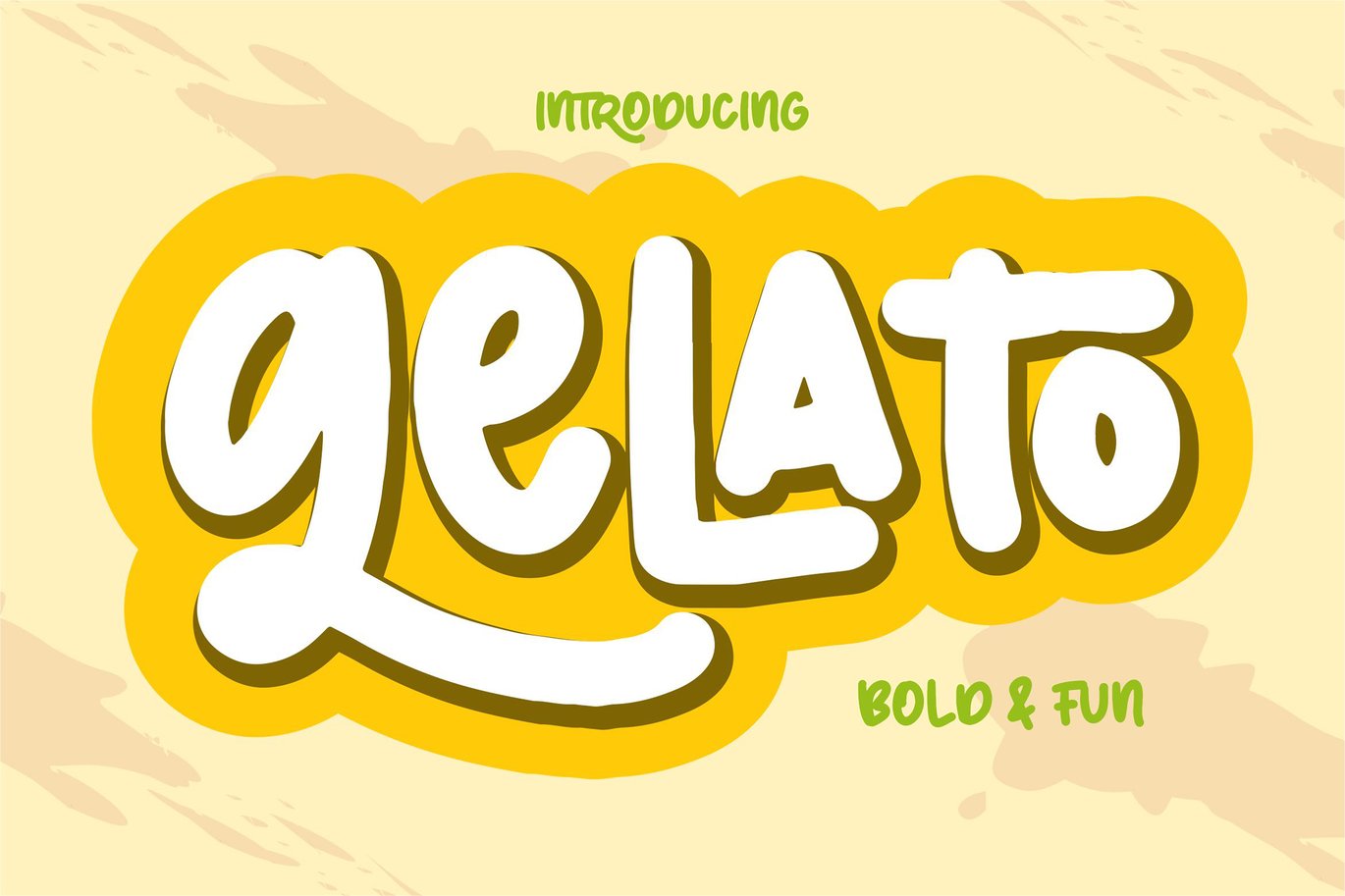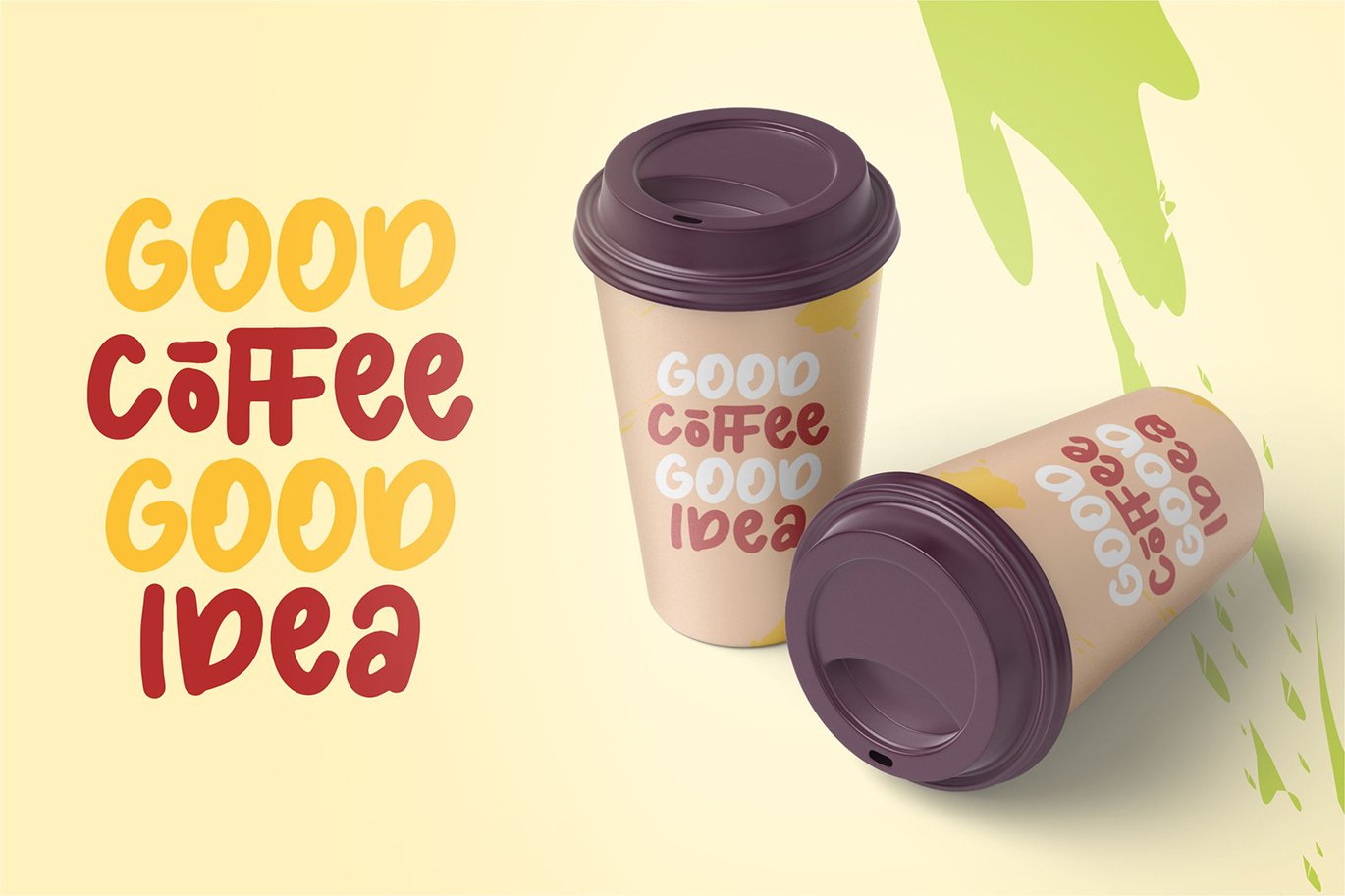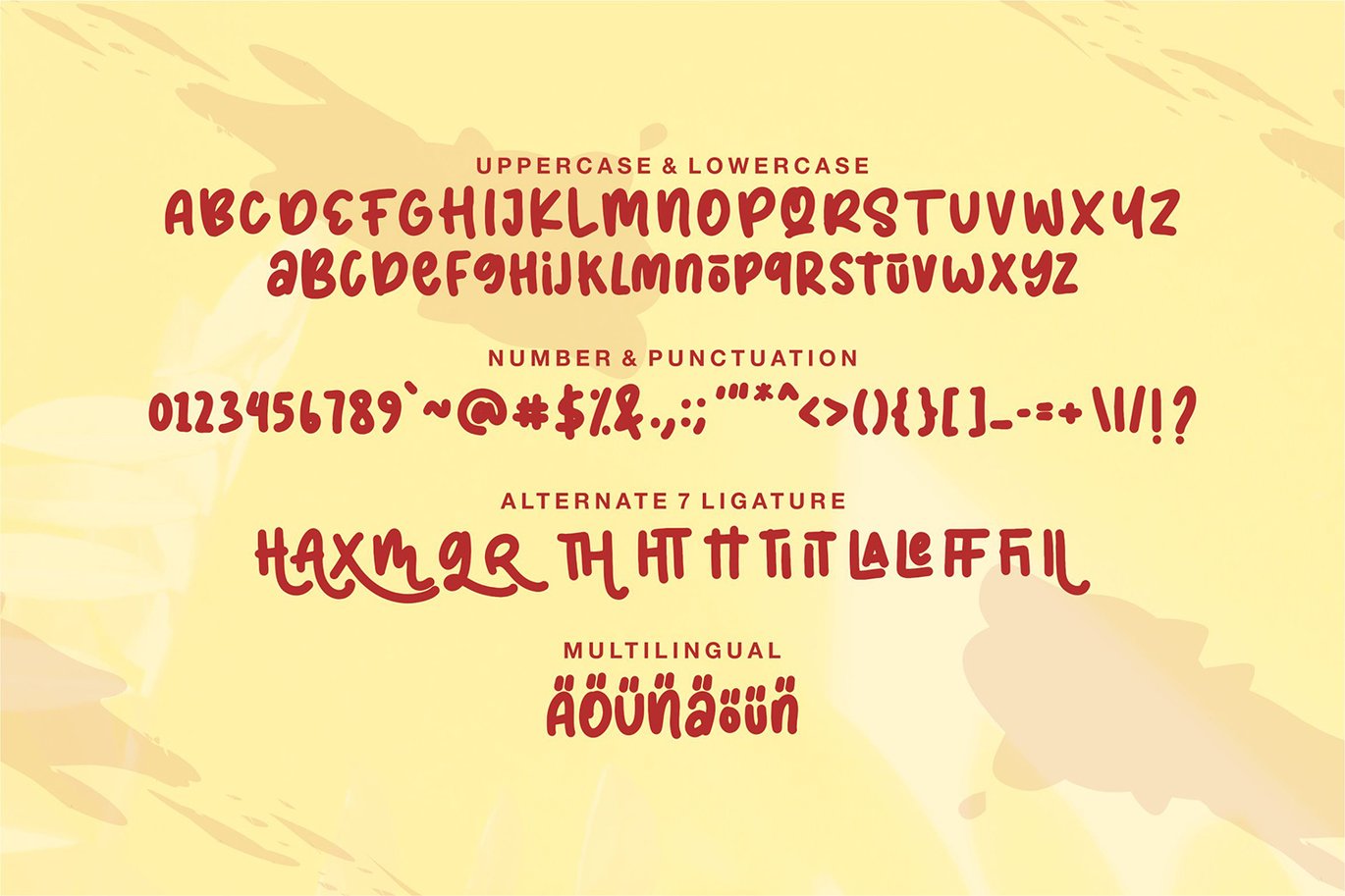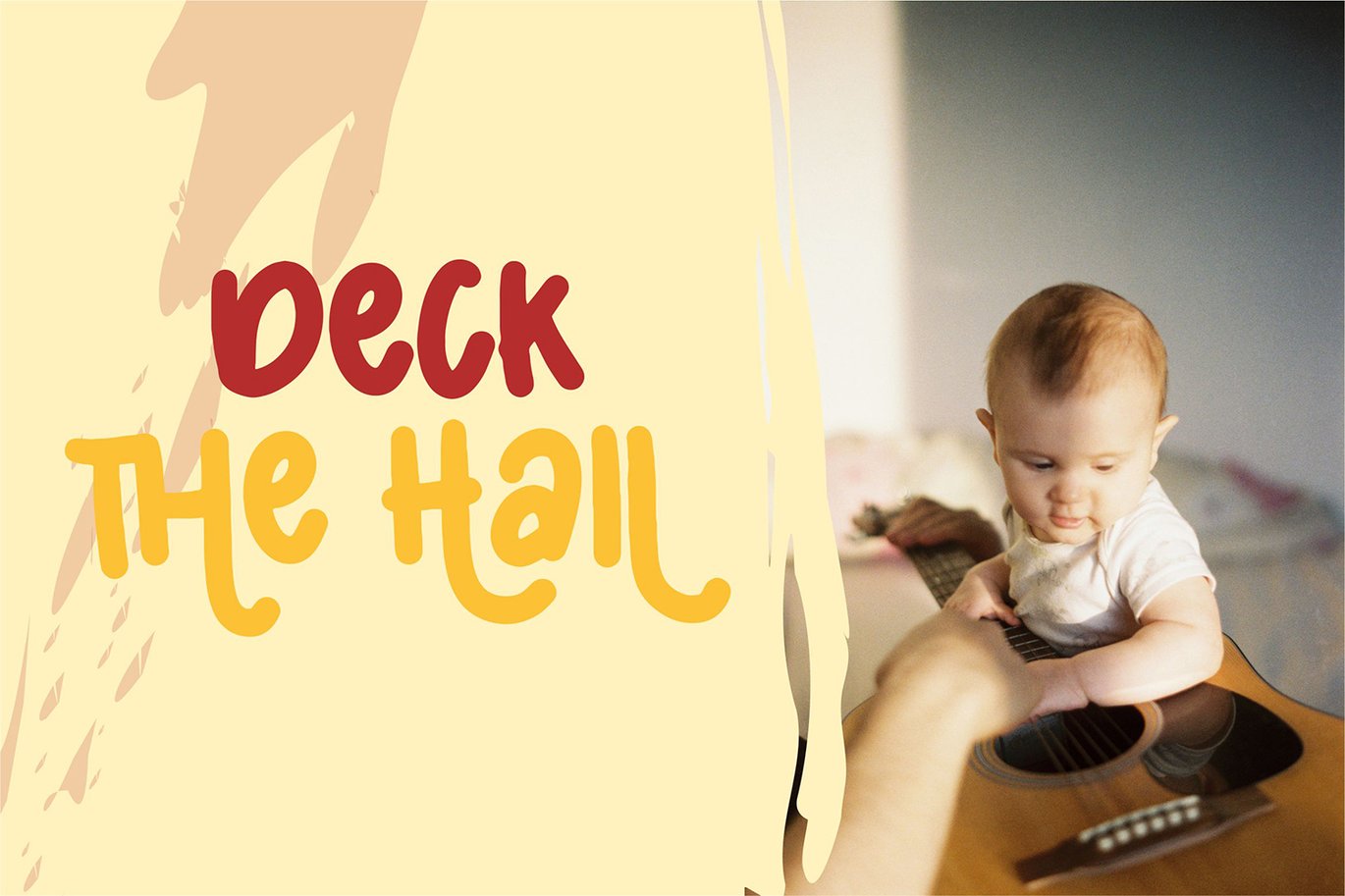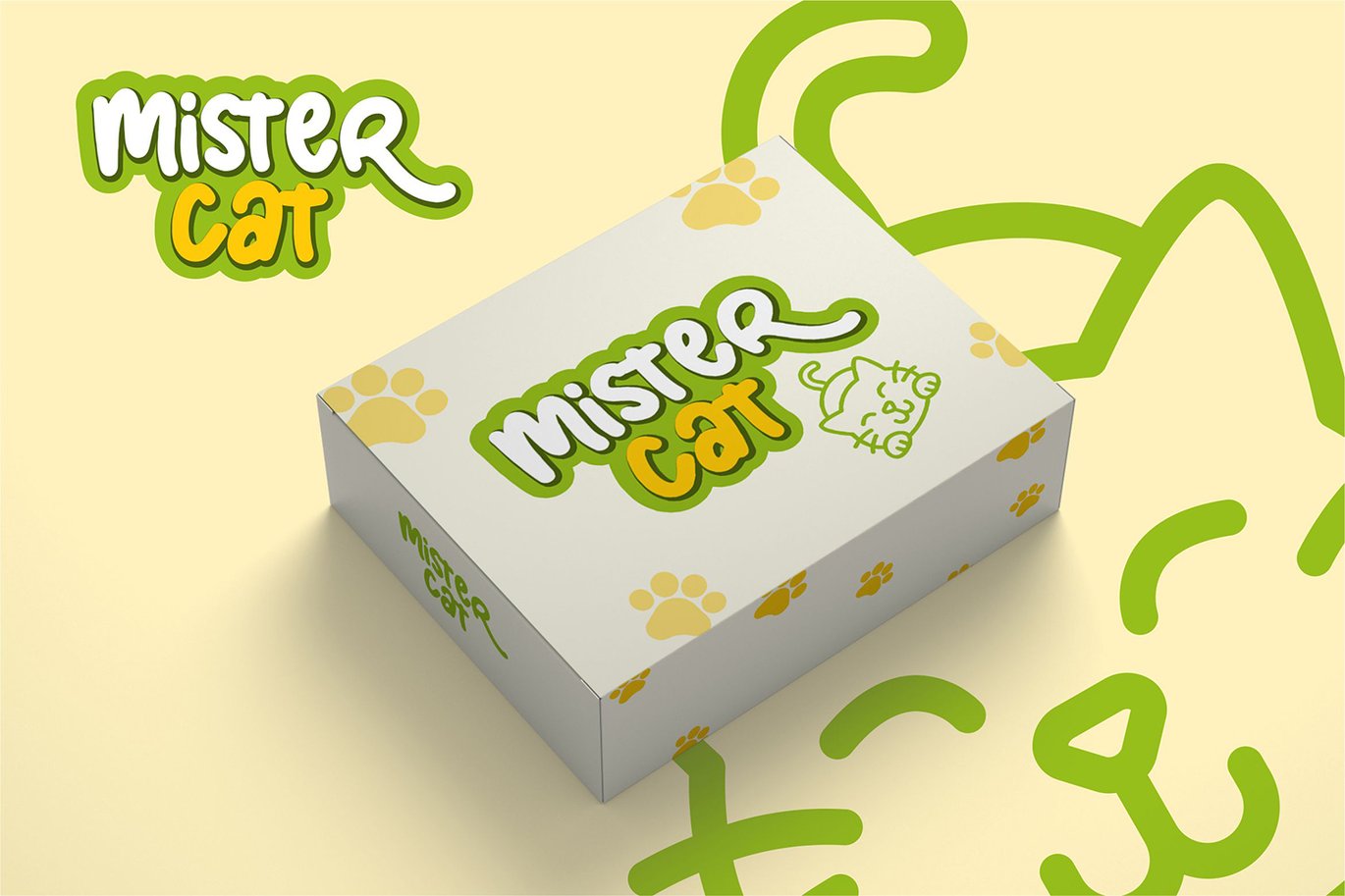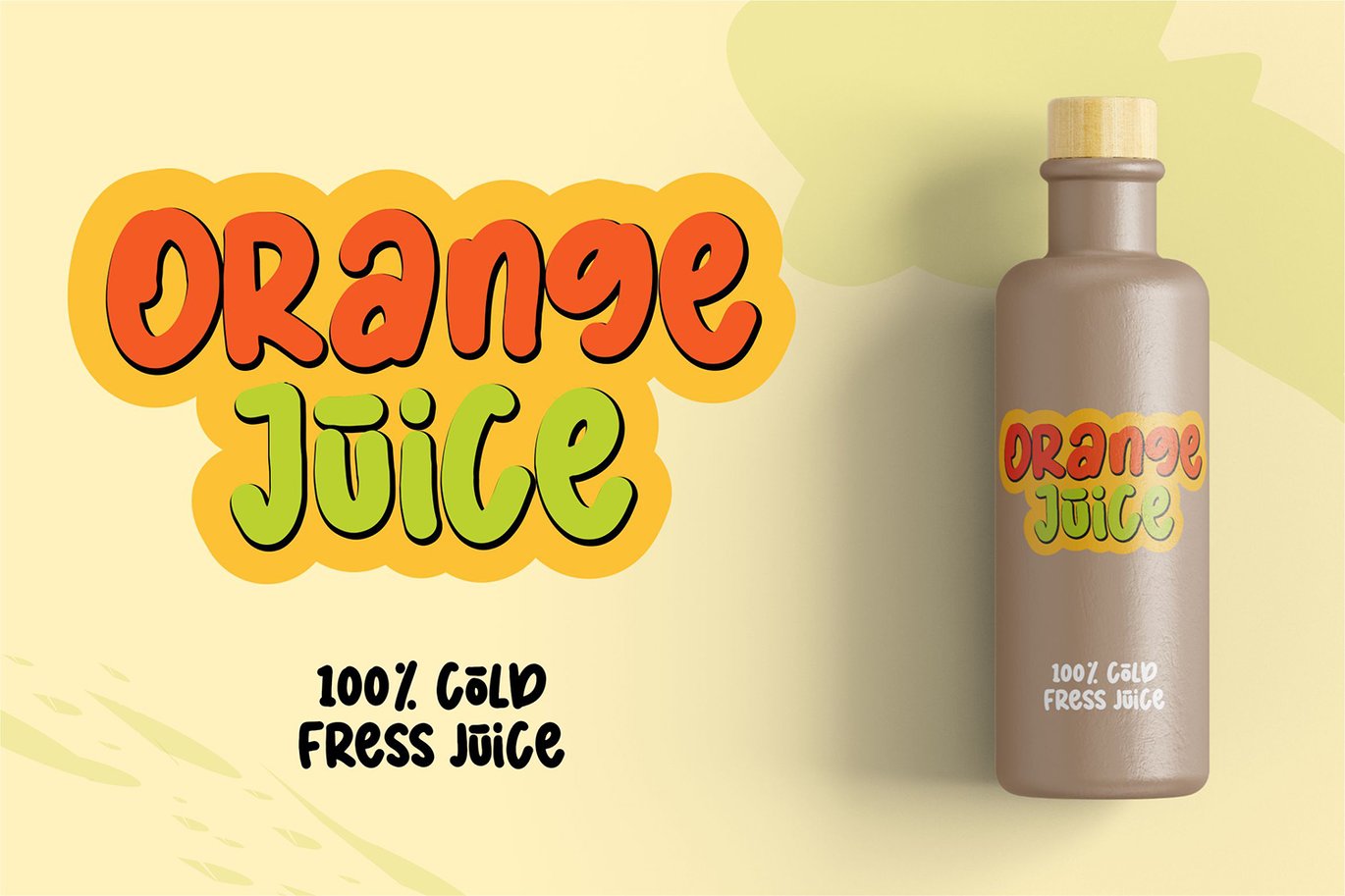
Gelato | Bold & Fun Font
Gelato | Bold & Fun Font with a calligraphy style, So beautiful on invitation like greeting cards, branding materials, business cards, quotes, posters, and more!